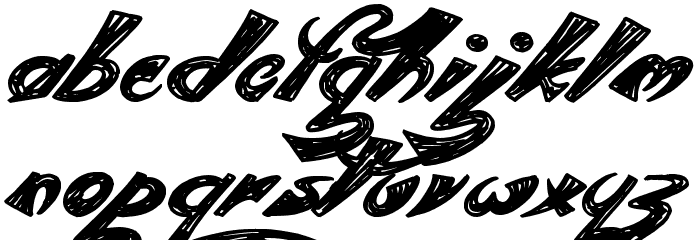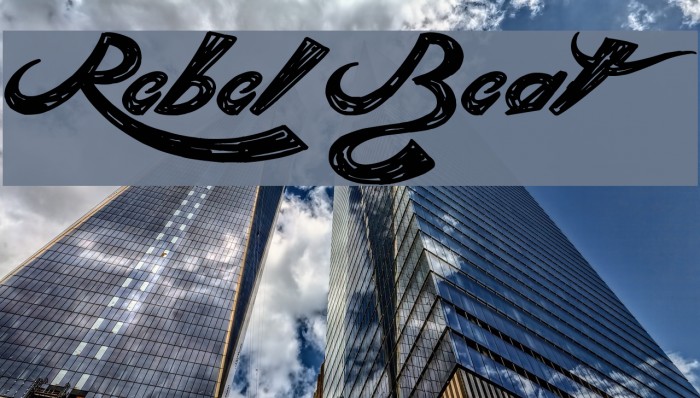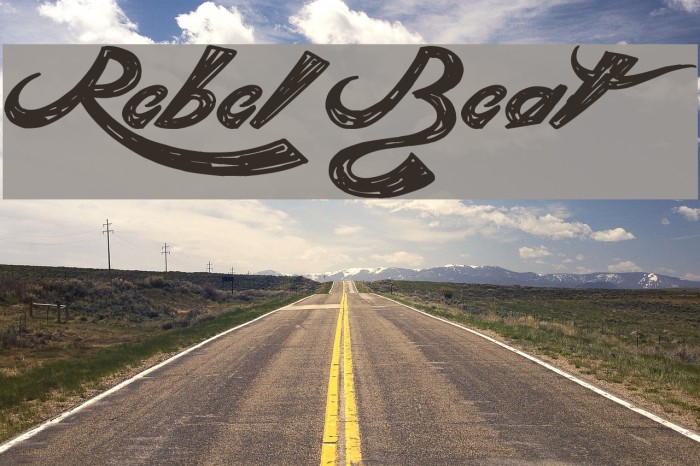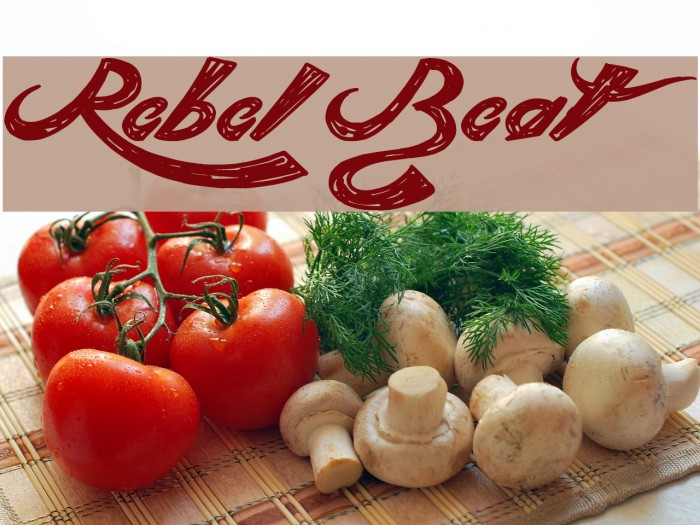
Rebel Beat Font
This font exhibits a bold, expressive style with a hand-drawn appearance. The strokes are thick and dynamic, creating a sense of movement and energy. Each character is uniquely crafted, with a mix of sharp angles and smooth curves that give it a rebellious and artistic flair. The uppercase letters are particularly dramatic, with exaggerated flourishes and a sense of individuality. The lowercase letters maintain the same energetic style, ensuring consistency throughout the typeface. The numbers and special characters are equally bold and expressive, making them stand out in any design.
A bold, expressive font with a hand-drawn, rebellious style.
- Proposed Projects: Ideal for music album covers, graffiti art, streetwear branding, and edgy event posters.